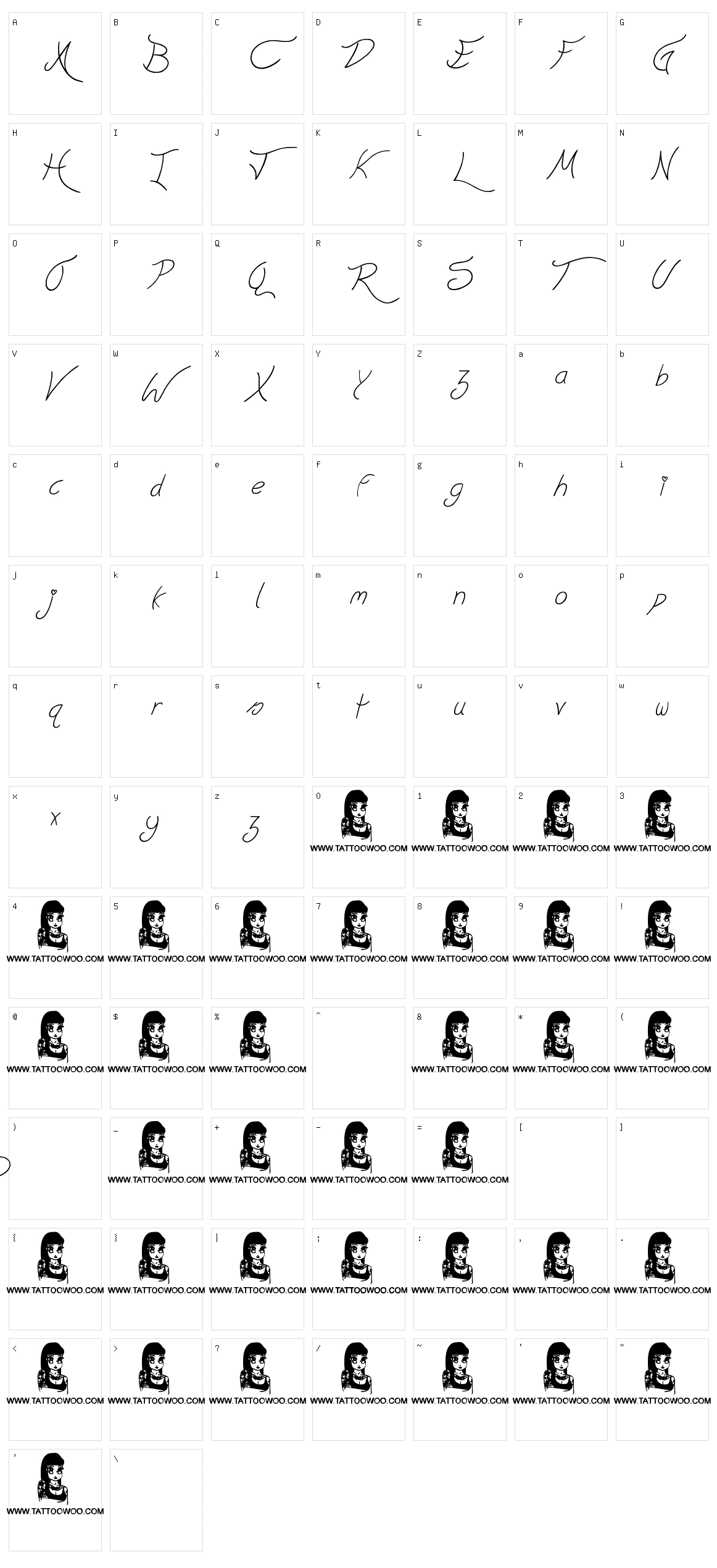
The free font Cheese Cake is carefully designed by JSH creates, showcasing a thoughtful balance of creativity and usability and falls under the Script font style. When you download the ZIP file, it contains only 39.77 KB of font files, making it lightweight and quick to download. Please review the license details below to understand permitted usage and distribution rights. If license information is not available, we recommend using this font for personal projects only or contacting the author directly for commercial usage permissions.